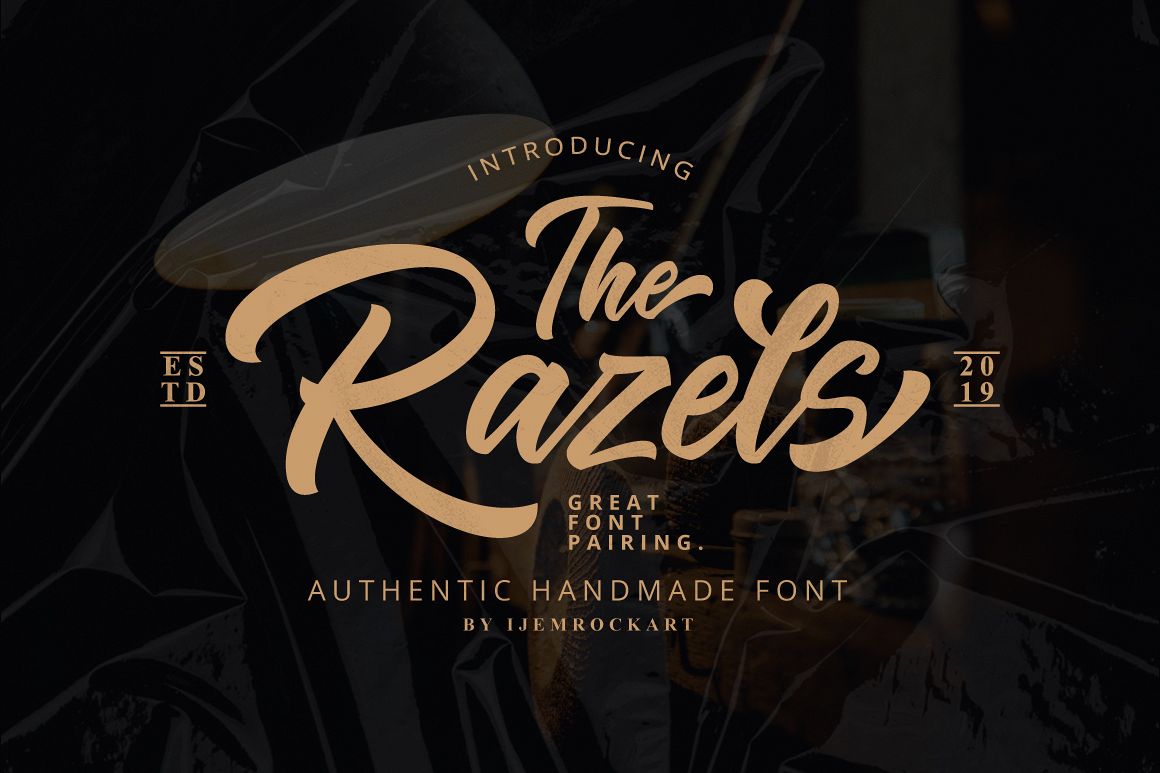
The Razels
The Razels Inspired by Retro style and combination with Hand Lettering style. I'm made with personality touch every single curve. I hope this can make inspire you from your work. and a very bouncy baseline It has a perfectly paired complimentary marker font , and a super handy set of bonus Swash. Ideal for logos, handwritten quotes, product packaging, header, poster, merchandise, social media & greeting cards.Features
• Basic Latin A-Z and a-z
• Symbols
• Stylistic Set
• PUA Encode
• Multilanguage Support